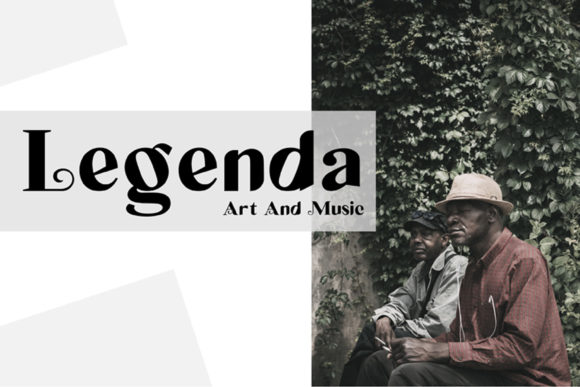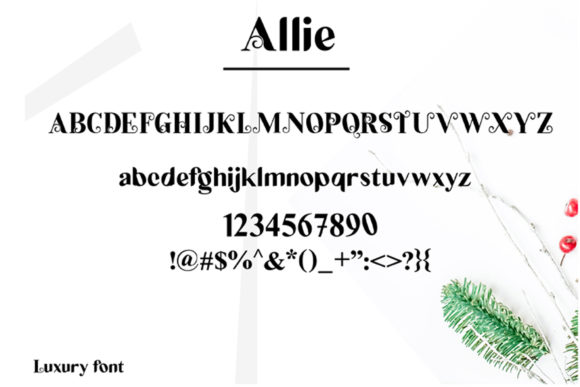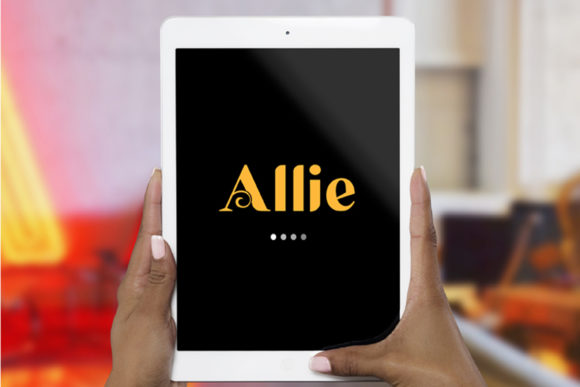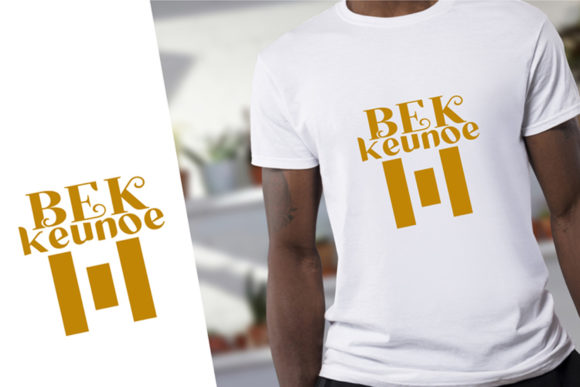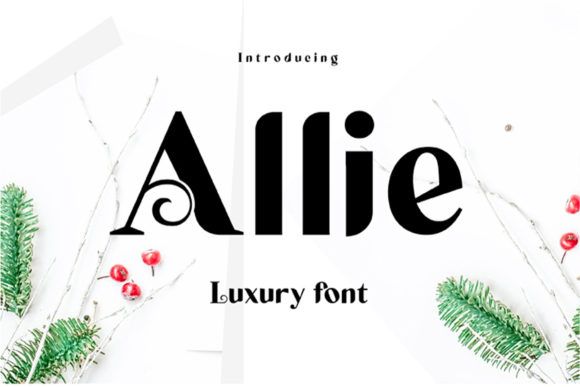
Introducing Allie Font: The Perfect Choice for Crafting Projects
Are you a designer or crafter looking for a modern and elegant display font to elevate your projects? Look no further than Allie Font! With its charming character and versatility, Allie Font is the perfect choice for a wide range of crafting projects. In this article, we’ll take a closer look at the features and benefits of Allie Font, and explore how it can be used to add a touch of sophistication and style to your creations.
What is Allie Font?
Allie Font is a modern and elegant display font that is designed to make a statement. Its charming character and unique personality make it stand out from other fonts, making it perfect for projects that require a touch of sophistication and style. Whether you’re working on a DIY craft project, creating a logo or branding materials, or designing a website or social media graphics, Allie Font is the perfect choice.
Key Features of Allie Font
So, what makes Allie Font so special? Here are just a few of its key features:
• Modern and Elegant Design: Allie Font has a sleek and sophisticated design that is perfect for modern crafting projects.
• Charming Character: The font has a unique and charming character that sets it apart from other fonts.
• Versatile: Allie Font can be used for a wide range of projects, from DIY crafts to professional design projects.
• Easily Readable: Despite its elegant design, Allie Font is still easily readable, making it perfect for use in titles, headings, and other display text.
Benefits of Using Allie Font
So, why should you choose Allie Font for your crafting projects? Here are just a few of the benefits of using this amazing font:
• Adds a Touch of Sophistication: Allie Font adds a touch of sophistication and style to any project, making it perfect for crafters who want to create professional-looking results.
• Versatile: The font can be used for a wide range of projects, from paper crafting to card making, and from DIY home decor to professional design projects.
• Easily Customizable: Allie Font can be easily customized to fit your project’s needs, whether you want to change the color, size, or style.
• Supports Multiple Languages: The font supports multiple languages, making it perfect for crafters who work with clients or customers from around the world.
How to Use Allie Font in Your Crafting Projects
So, how can you use Allie Font in your crafting projects? Here are a few ideas to get you started:
• Paper Crafting: Use Allie Font to create beautiful paper crafting projects, such as cards, scrapbook pages, and gift tags.
• Card Making: Add a touch of elegance to your handmade cards with Allie Font.
• DIY Home Decor: Use Allie Font to create beautiful DIY home decor projects, such as wall art, signs, and banners.
• Digital Design: Use Allie Font in your digital design projects, such as social media graphics, blog posts, and website headers.
Tips and Tricks for Working with Allie Font
Here are a few tips and tricks to help you get the most out of Allie Font:
• Experiment with Different Sizes and Colors: Don’t be afraid to experiment with different sizes and colors of Allie Font to find the perfect look for your project.
• Pair with Other Fonts: Allie Font pairs well with other fonts, so don’t be afraid to try pairing it with different fonts to create a unique look.
• Use in Combination with Images: Allie Font looks great in combination with images, so try using it to add text to your photos or illustrations.
Font Name Allie Font
Author ed.creative
In conclusion, Allie Font is a modern and elegant display font that is perfect for a wide range of crafting projects. Its charming character, versatility, and ease of use make it a must-have for designers and crafters who want to add a touch of sophistication and style to their creations. Whether you’re working on a DIY craft project or a professional design project, Allie Font is the perfect choice. So why wait? Download Allie Font today and start creating beautiful projects that showcase your unique style and creativity!